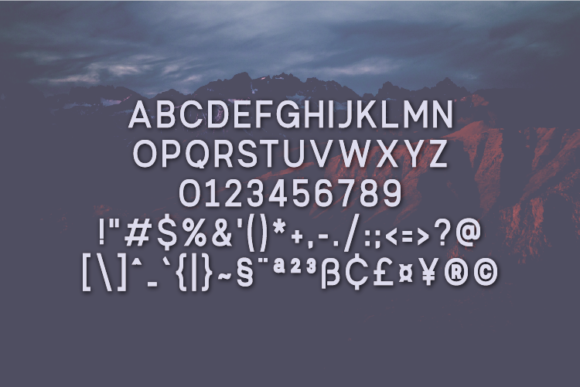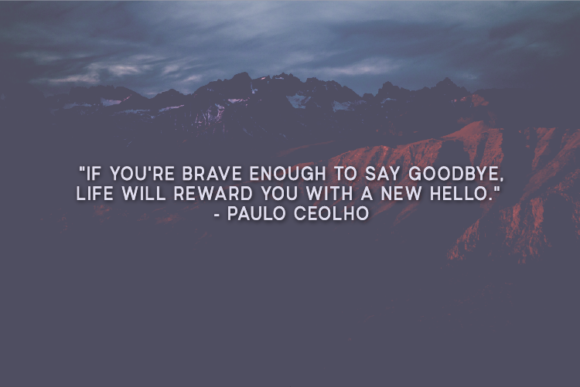
Dreamlove Font: The Ultimate Minimalist Sans Serif for Your Designs
Are you tired of using the same old fonts in your designs? Look no further than the Dreamlove Font! This beautiful, minimal sans serif font is perfect for a wide range of design projects, from elegant branding and logos to simple yet effective packaging and marketing materials.
What is Dreamlove Font?
Dreamlove is a carefully crafted, minimal sans serif font that exudes elegance and sophistication. Its neat and simple style makes it incredibly versatile, allowing it to be used in a variety of design contexts. Whether you’re a designer, craftsperson, or DIY enthusiast, Dreamlove Font is sure to become your go-to choice for all your design needs.
Key Features of Dreamlove Font
- Minimalist Design: Dreamlove Font boasts a clean and simple design that ensures your message always takes center stage.
- Elegant Sans Serif: The font’s elegant sans serif style makes it perfect for designs that require a touch of sophistication.
- Highly Versatile: Dreamlove Font can be used in a wide range of design projects, from logos and branding to packaging and marketing materials.
- Easy to Read: The font’s clear and simple design ensures that your text is always easy to read, even at small sizes.
Why Choose Dreamlove Font?
So why should you choose Dreamlove Font for your design projects? Here are just a few compelling reasons:
- Unique and Memorable: Dreamlove Font’s minimalist design ensures that your brand or message stands out from the crowd.
- Timeless Appeal: The font’s elegant sans serif style ensures that your designs will never go out of style.
- Easy to Pair: Dreamlove Font pairs well with a wide range of other fonts, making it easy to create stunning design combinations.
- Perfect for Digital and Print: Whether you’re designing for digital or print, Dreamlove Font is the perfect choice.
How to Use Dreamlove Font in Your Designs
Using Dreamlove Font in your designs is easy! Here are a few tips to get you started:
- Branding and Logos: Use Dreamlove Font to create stunning brand identities and logos that make a lasting impression.
- Packaging Design: Add a touch of elegance to your packaging designs with Dreamlove Font.
- Marketing Materials: Use Dreamlove Font in your marketing materials, such as brochures, flyers, and posters, to create a cohesive and professional look.
- Digital Designs: Dreamlove Font is perfect for digital designs, including website headers, social media graphics, and more.
In conclusion, Dreamlove Font is a beautiful, minimal sans serif font that is perfect for a wide range of design projects. Its elegant design, versatility, and ease of use make it an excellent choice for designers, craftspersons, and DIY enthusiasts. Whether you’re looking to create stunning brand identities, elegant packaging designs, or effective marketing materials, Dreamlove Font is the perfect choice. So why wait? Try Dreamlove Font today and take your designs to the next level!